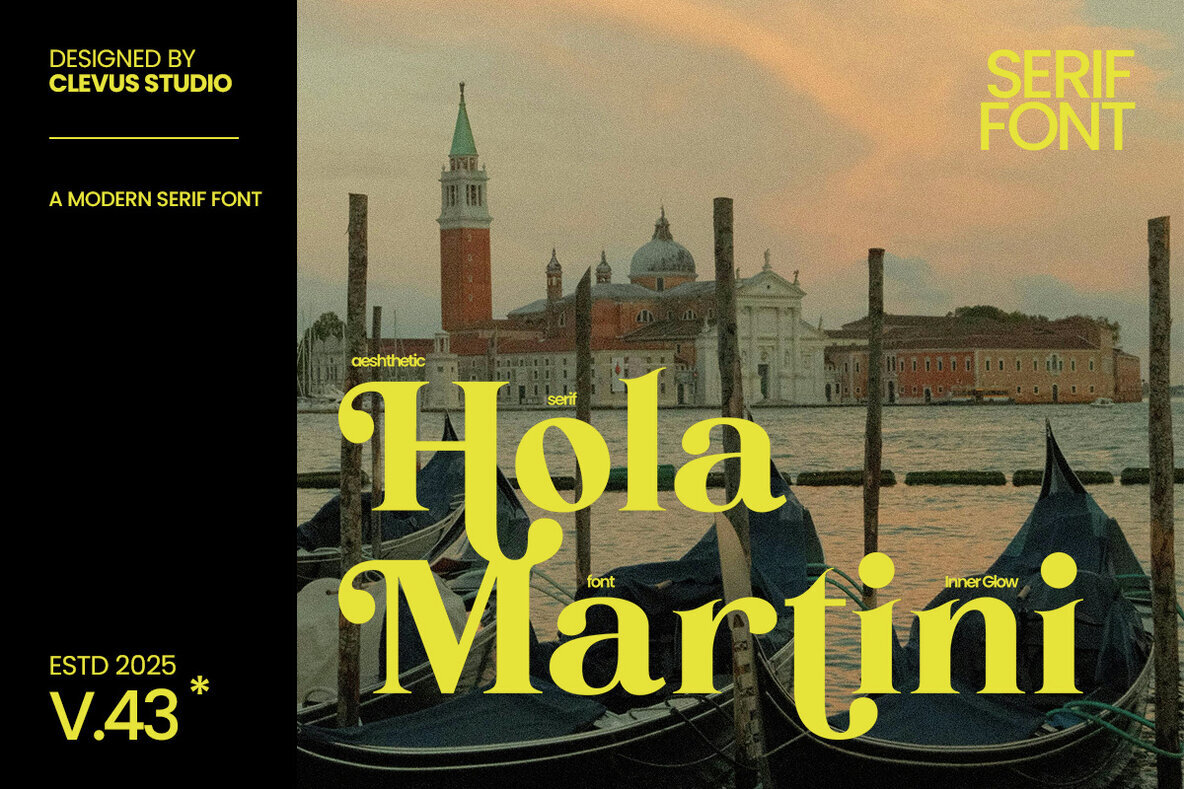
In the world of graphic design, finding the right font is often the secret sauce that gives a project its unique flavor. And when it comes to striking the perfect balance between old-world charm and contemporary elegance, the Hola Martini decorative font by Aluyeah Studio is your go-to choice. This typeface’s bold lines and playful curves not only infuse personality into your project but also lend it a nostalgia-tinged sophistication that turns heads.
Whether you’re working on an upmarket brand’s logo, designing the packaging for a high-end product, crafting invites for elegant events, or creating marketing campaigns that ooze style, Hola Martini’s versatile character makes it an indispensable asset in your graphic design toolkit.
Embrace Hola Martini: A Typeface That Defines Sophistication
Designed with a keen eye for detail, the Hola Martini typeface encompasses a full range of letters, numbers, symbols, and punctuation. Accompanied by over 40 alternates and ligatures, this font provides a wealth of versatility for designers looking to create unique typographic arrangements. You don’t need special software; Hola Martini is easily usable in basic programs like Canva, allowing you to explore its possibilities without limitations.
Moreover, its multi-language support ensures that your designs resonate with a global audience. This means whether you are creating a nostalgia-soaked poster, an elegant invitation, or a minimalist website, Hola Martini’s character and charm will shine through.